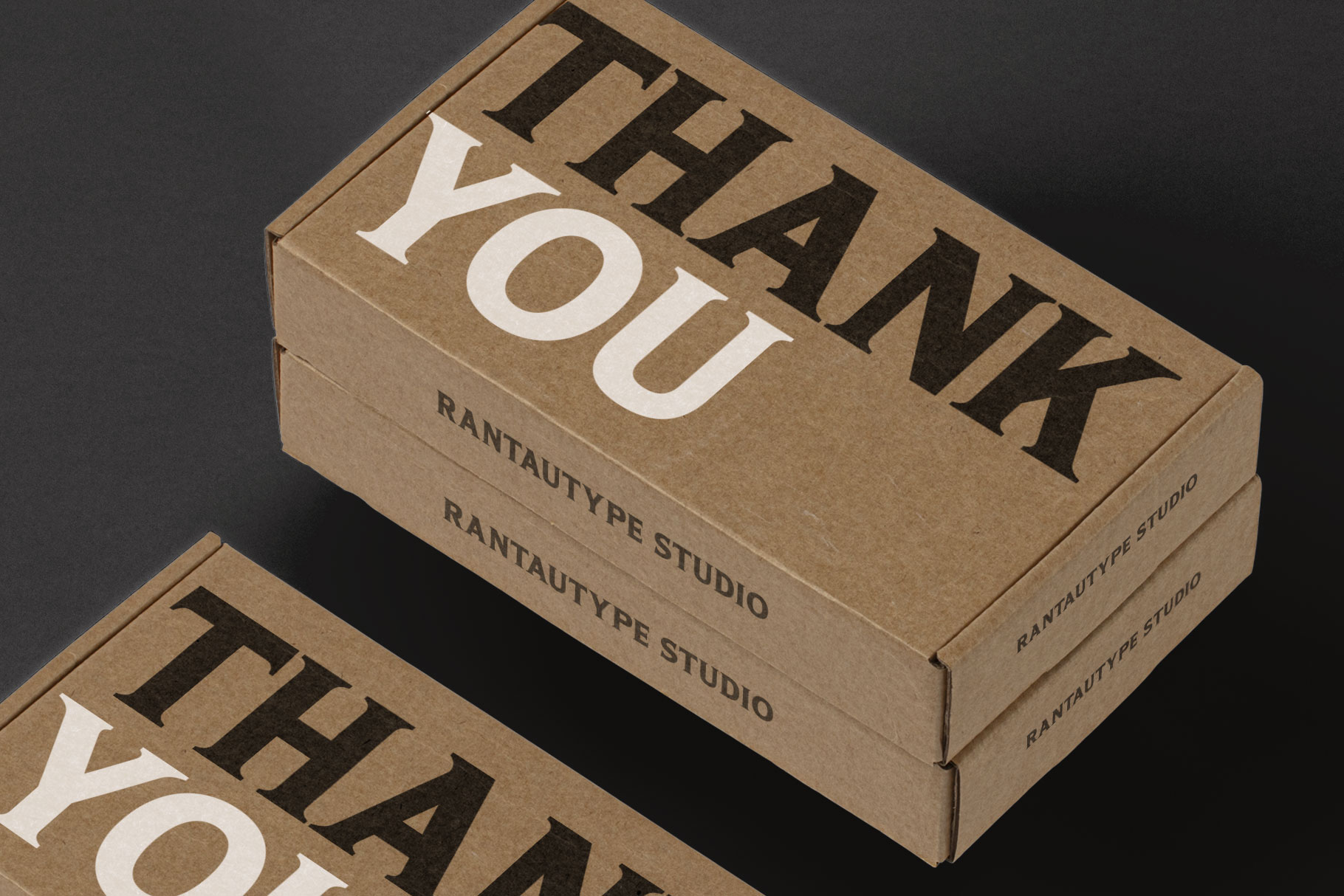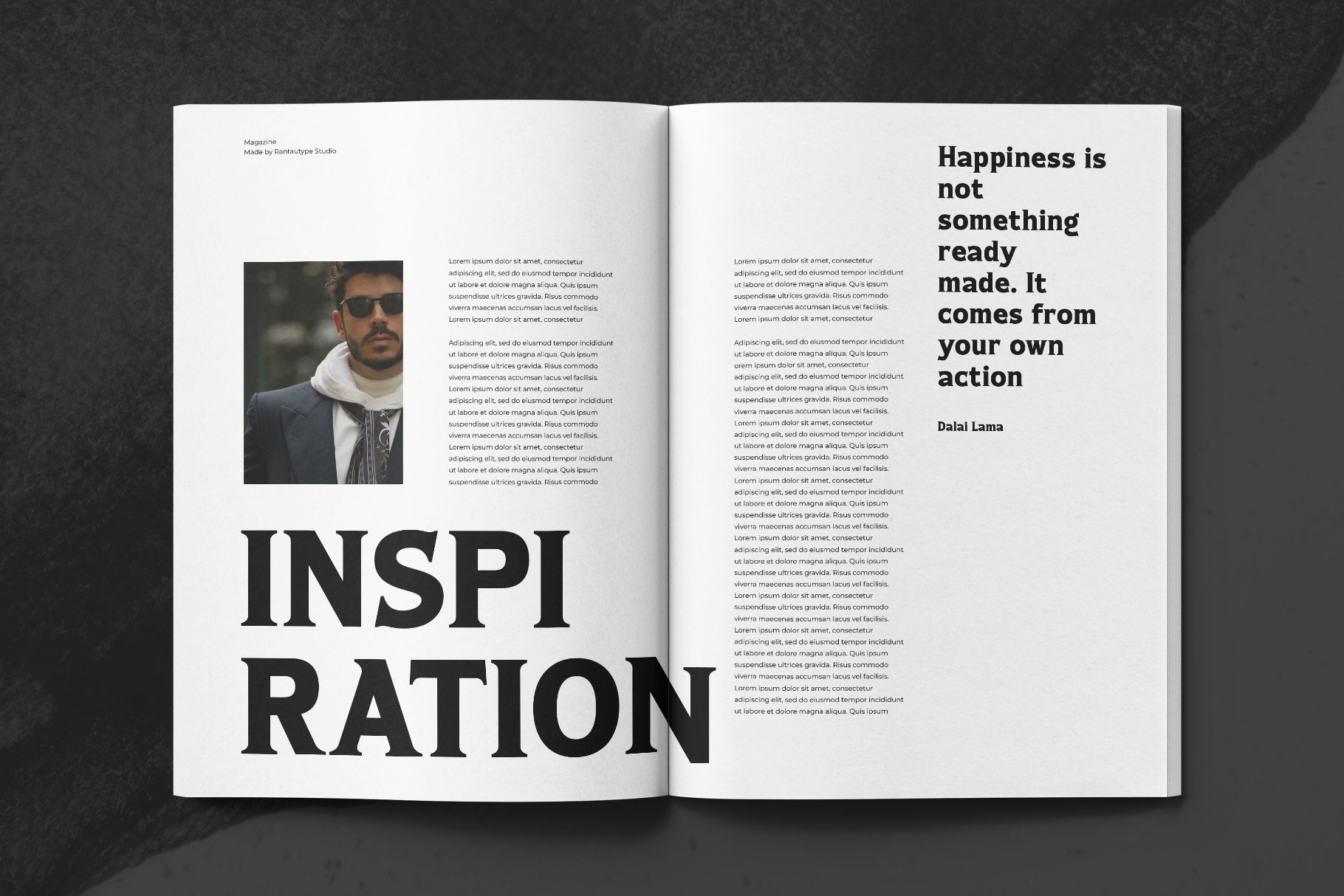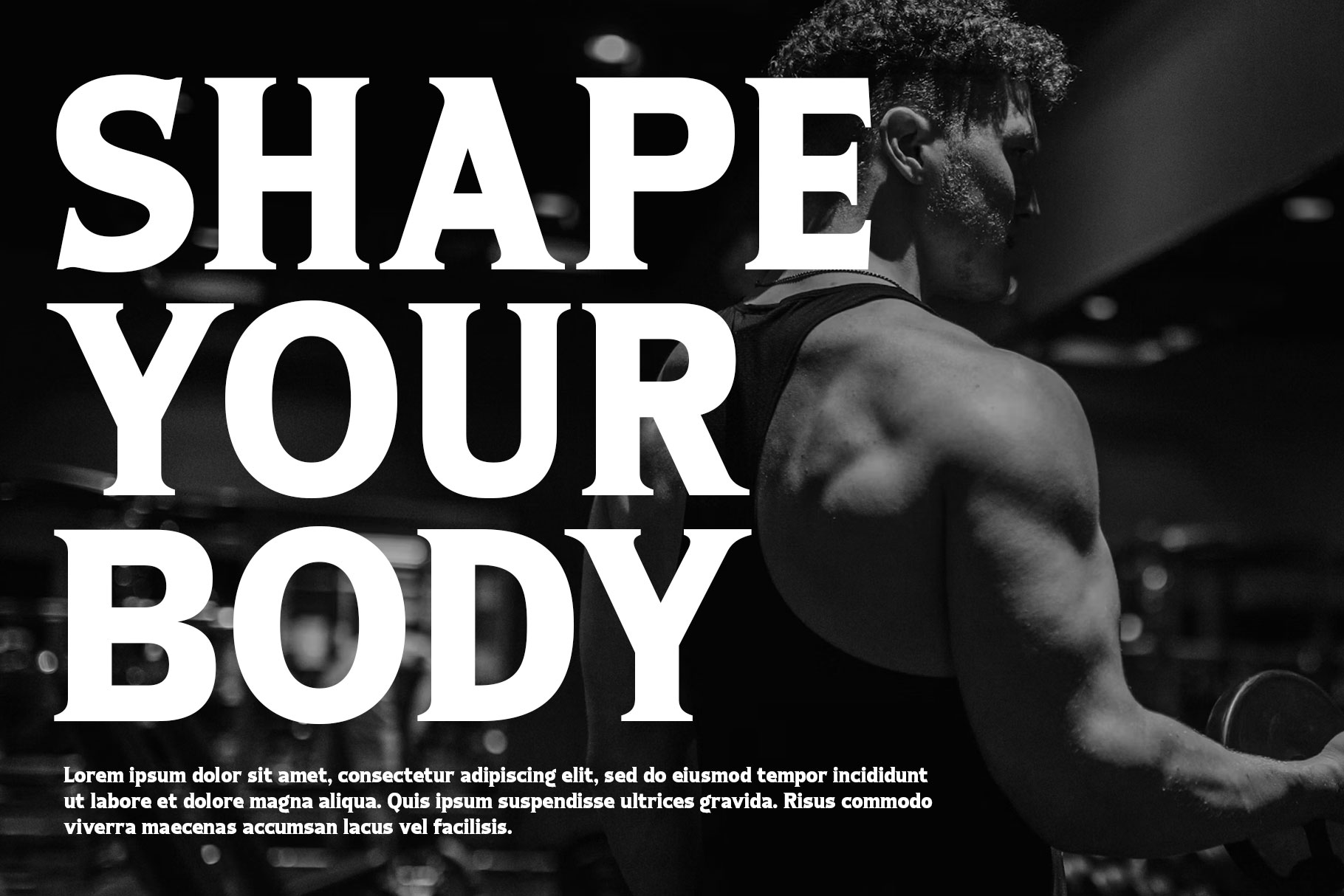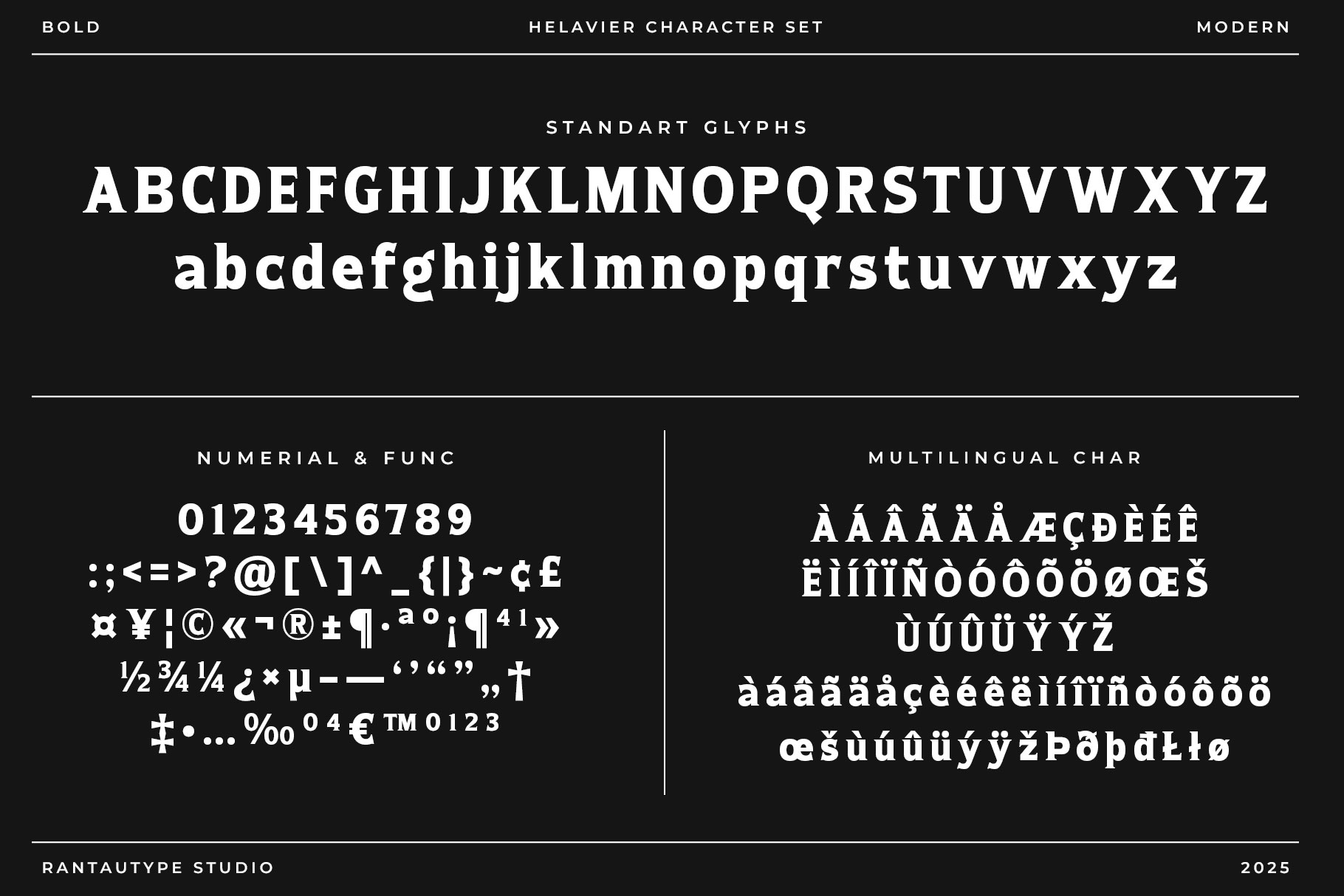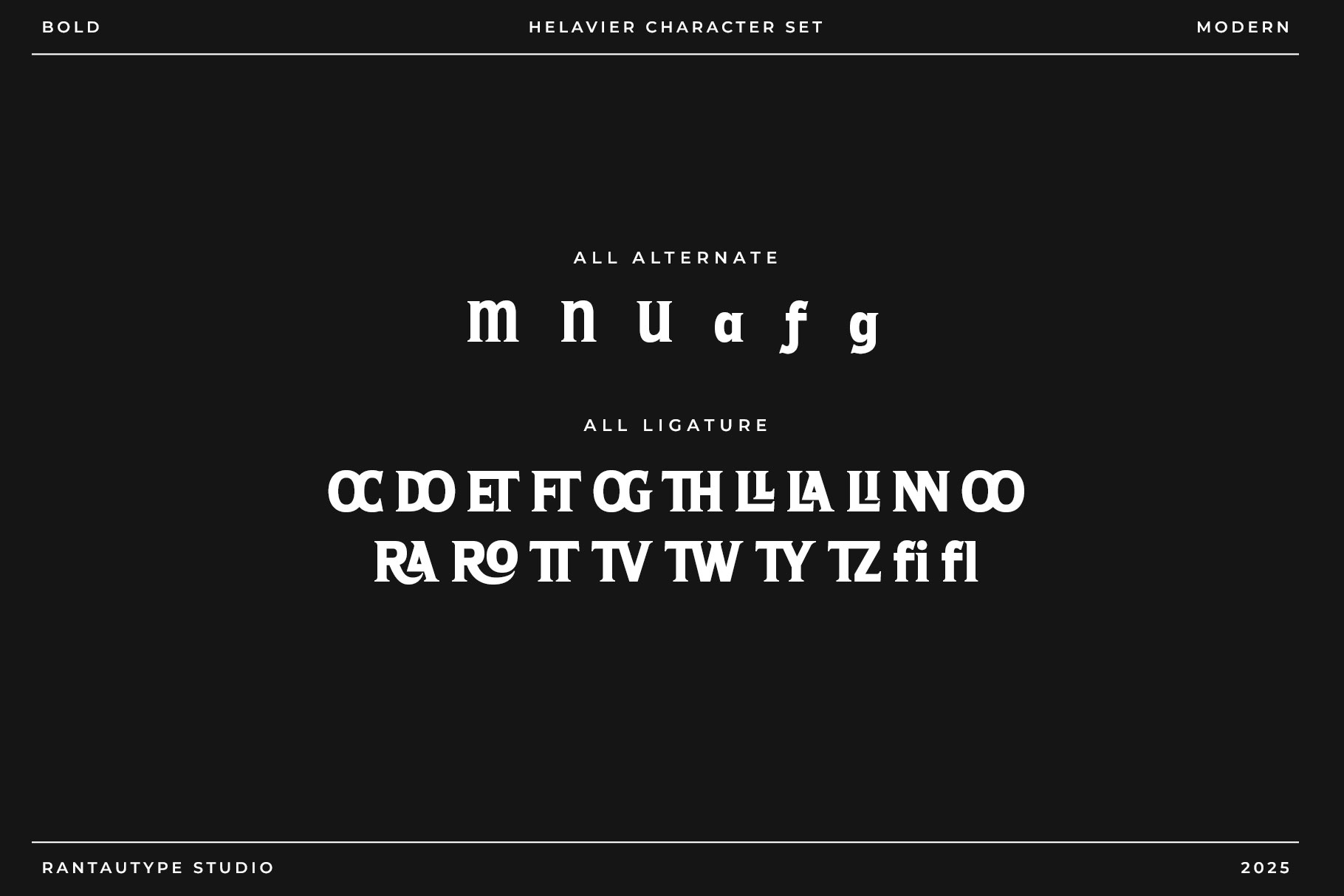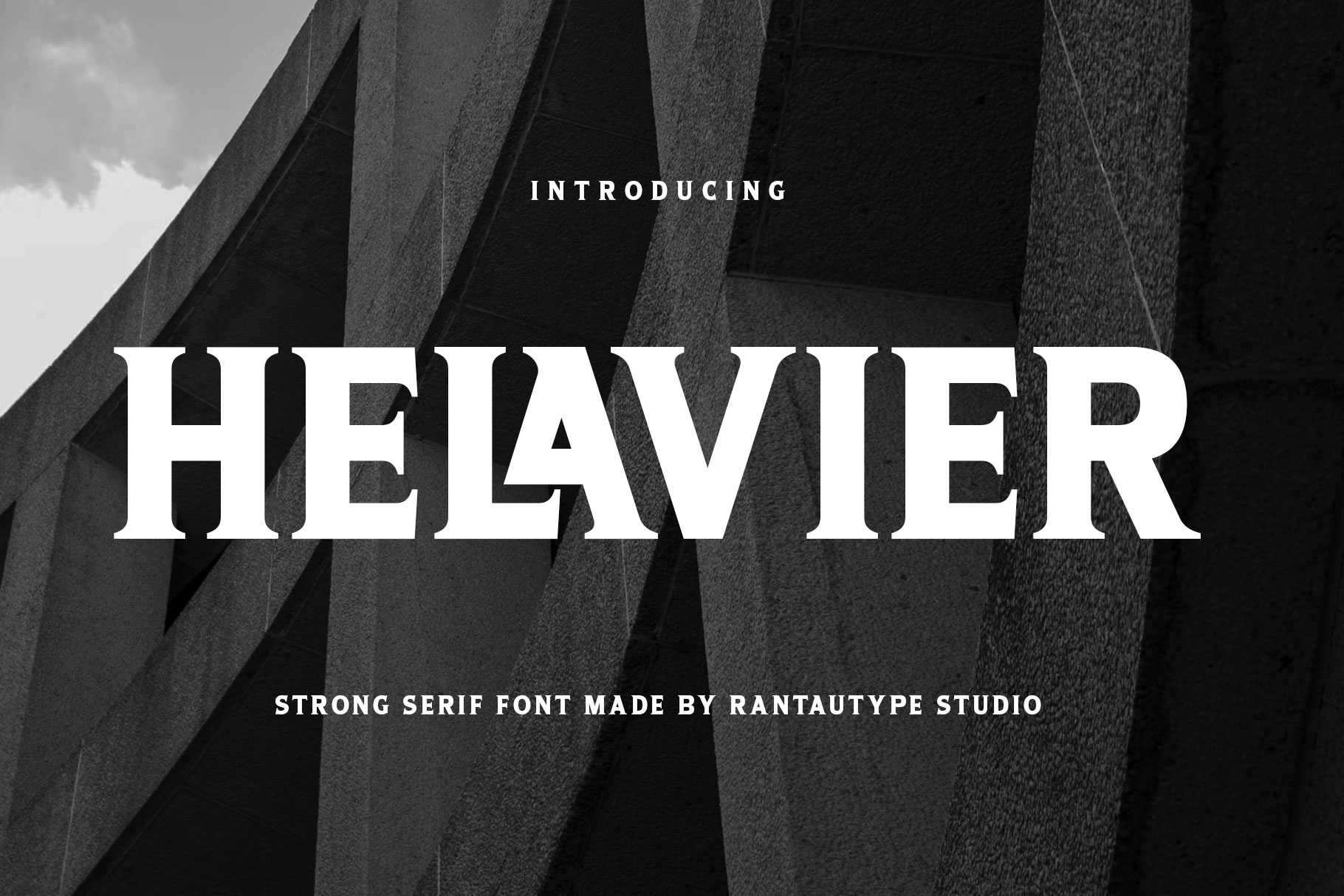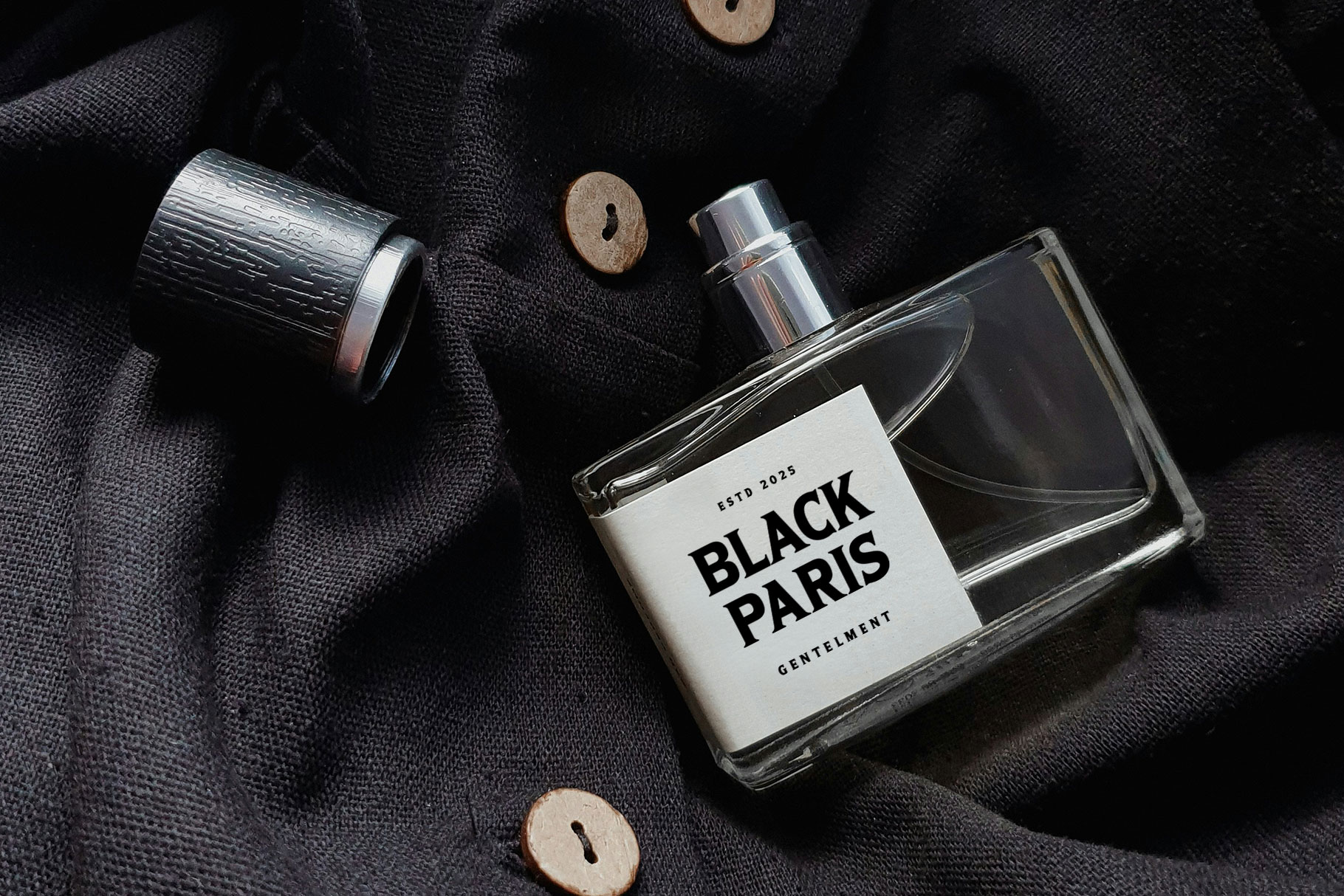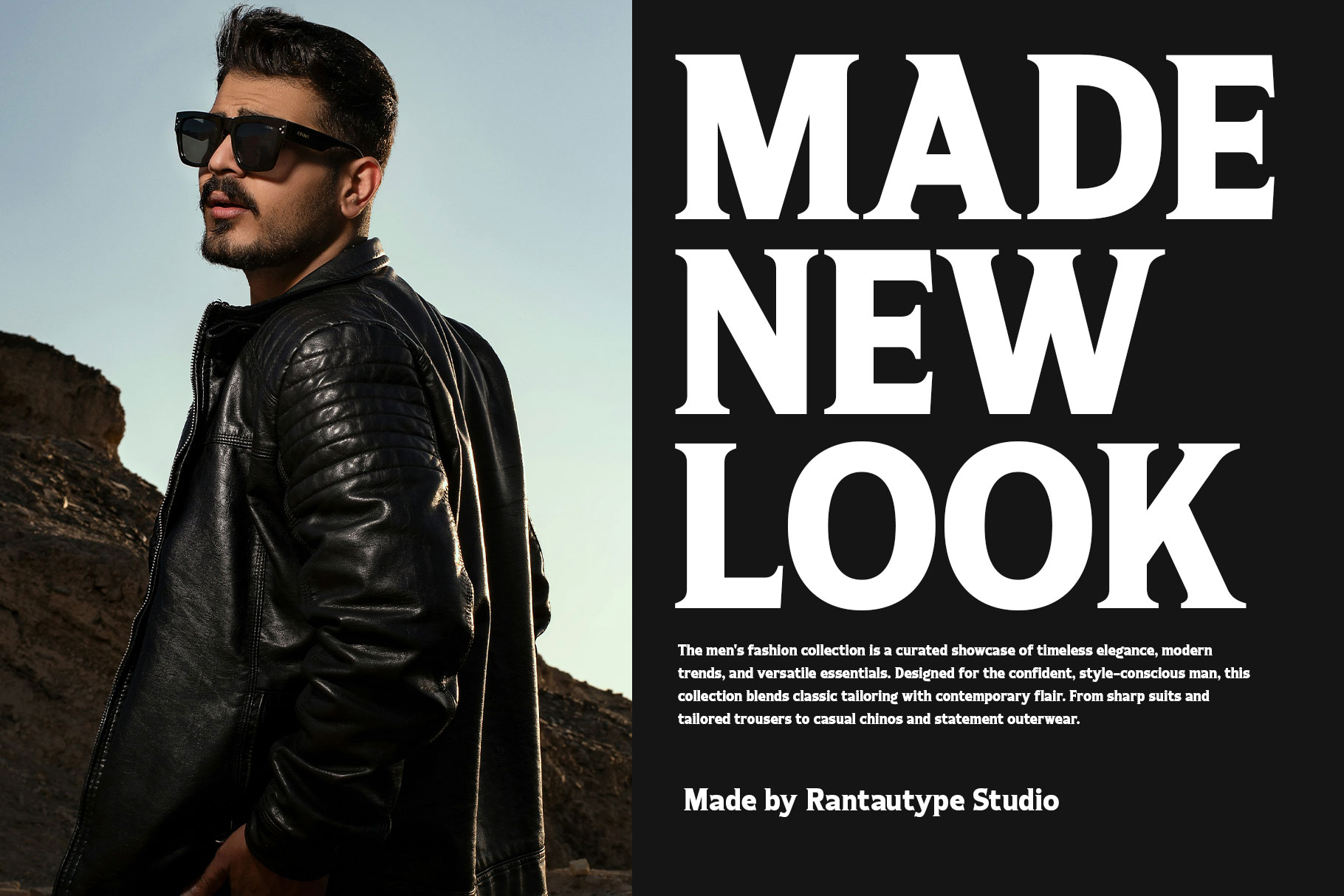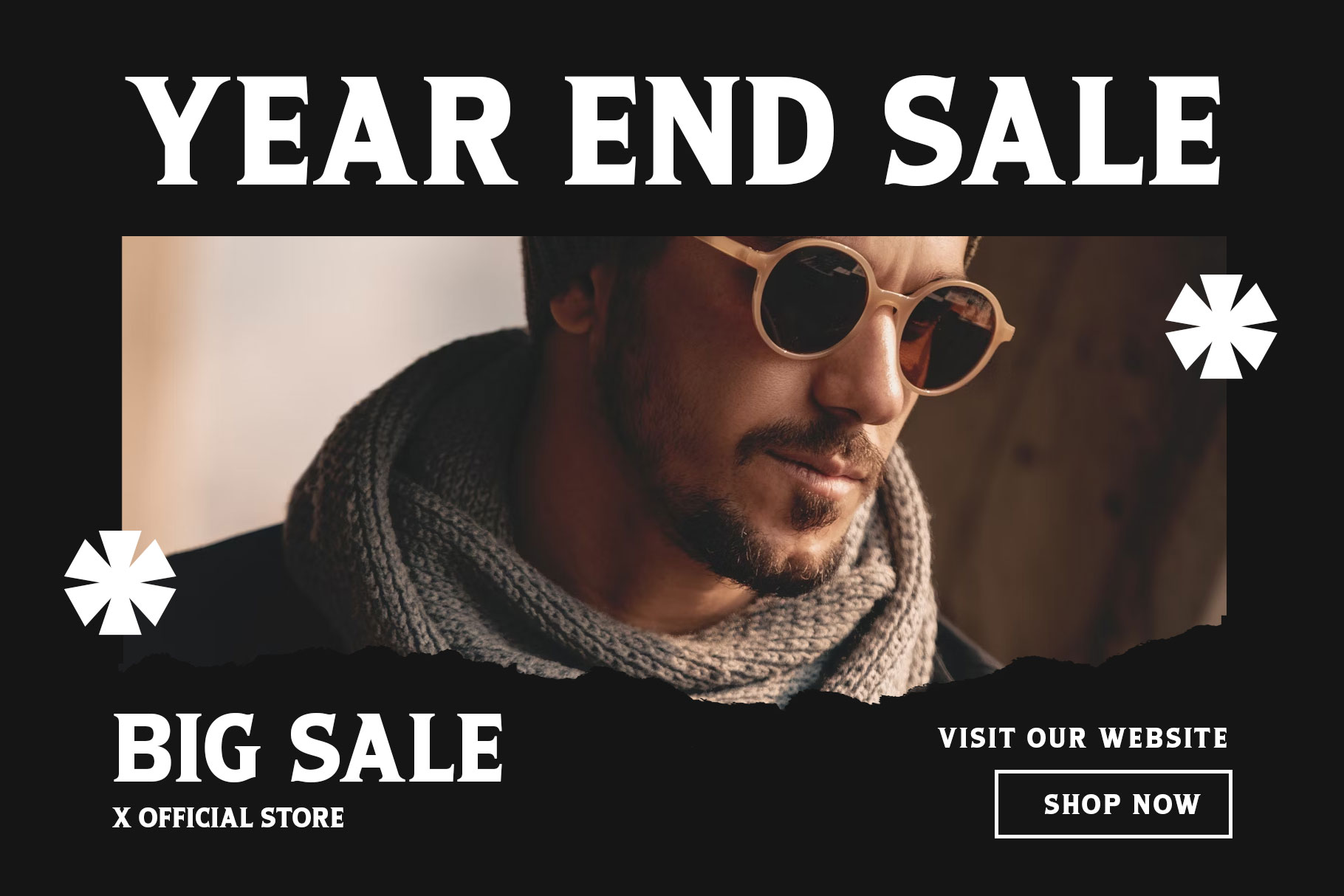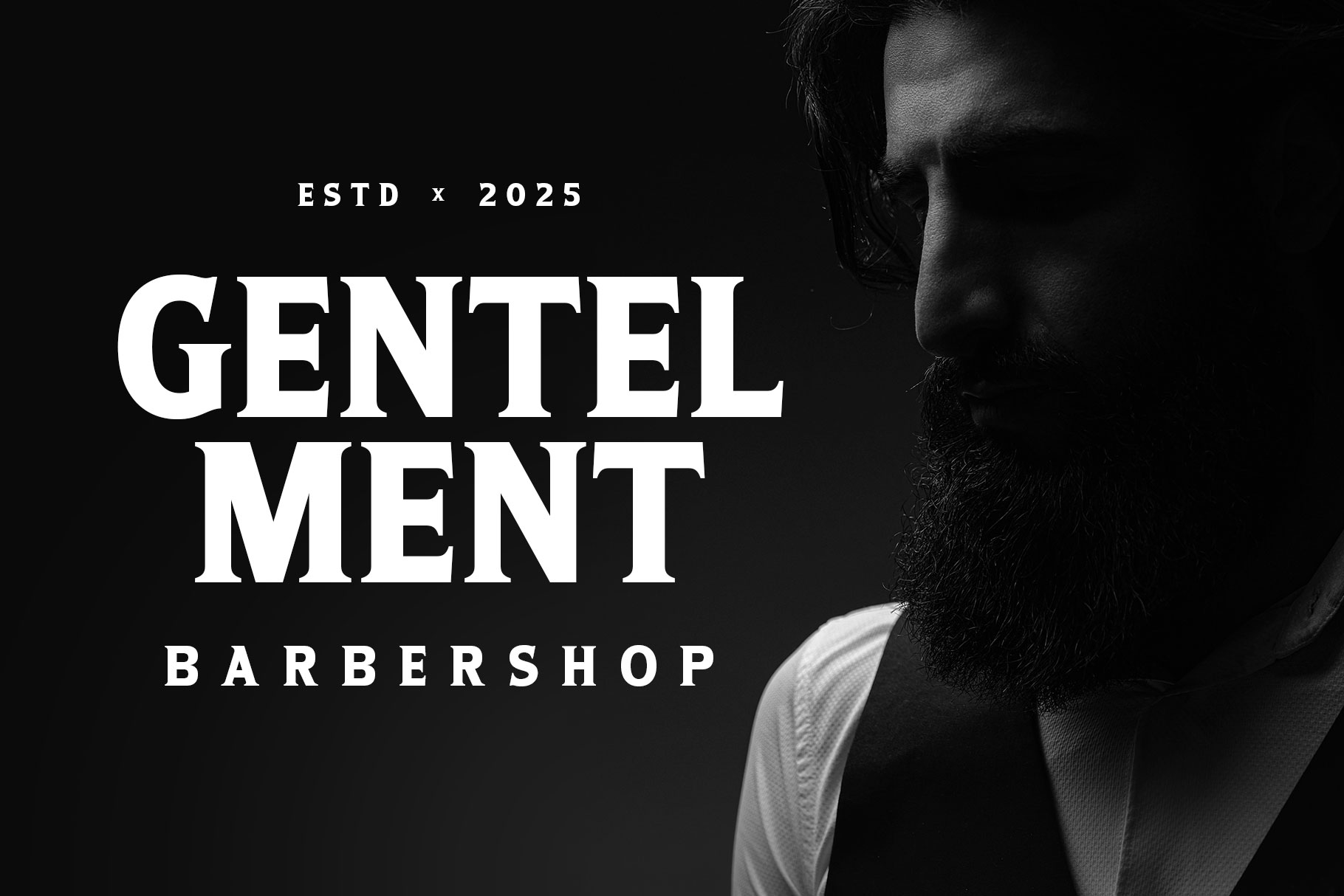
Helavier is a strong bold font with exudes power, clarity, and confidence. Designed to make an impact, it features thick strokes, sharp edges, and commanding letterforms that immediately draw attention.
Helavier is a perfectly choice for any creative endeavor, creating, modern, lifestyle design such as logotype, title, cover, branding, invitations, wedding designs, display and magazine, social media posts, advertisements, printed quotes, product packaging, corporate brand, product designs, labels, photography, watermarks, special events and any other project with modern touch.
Helavier Strong Serif Font